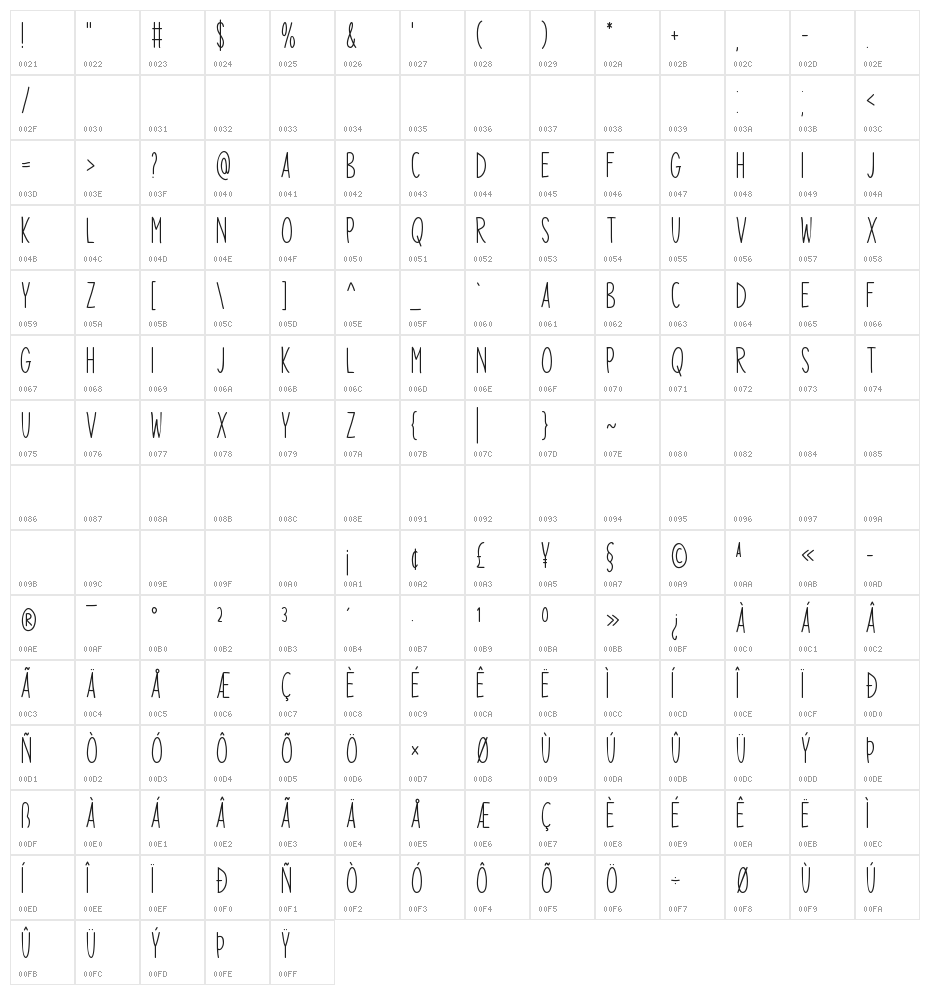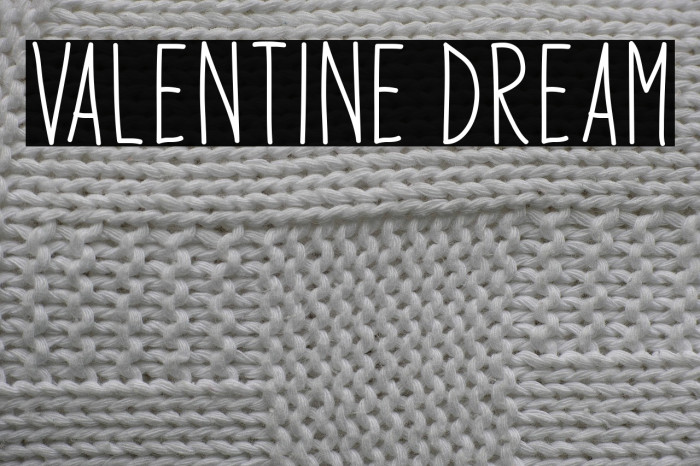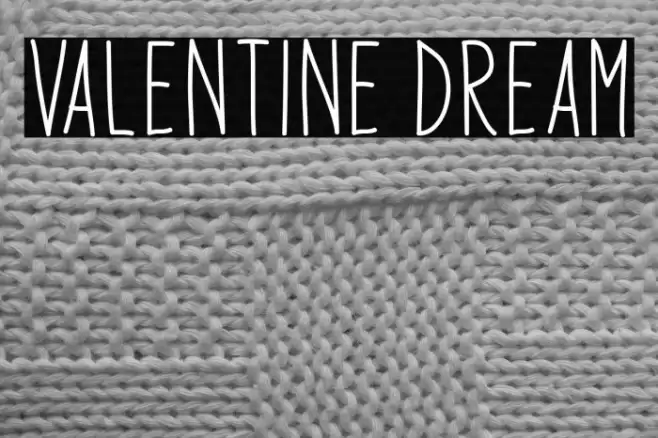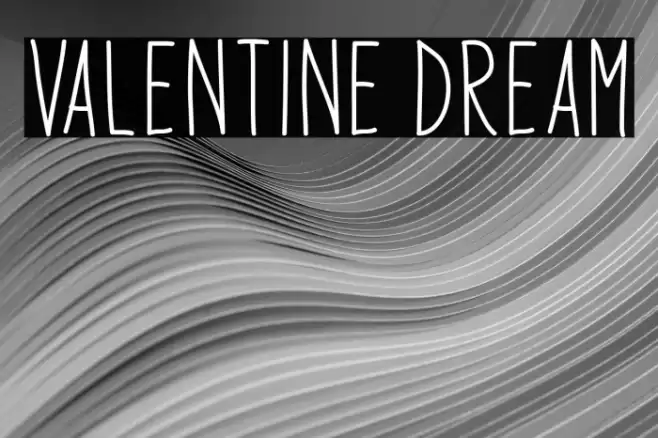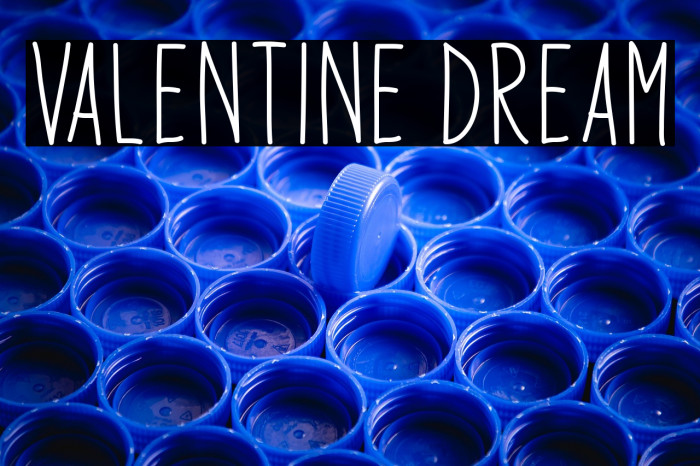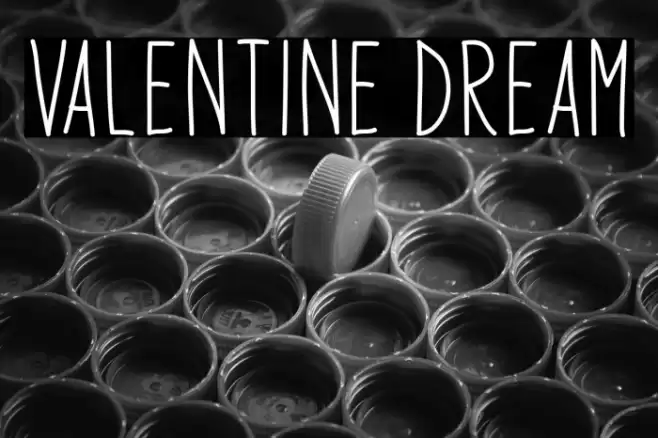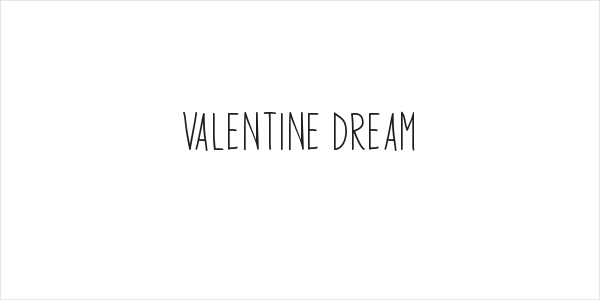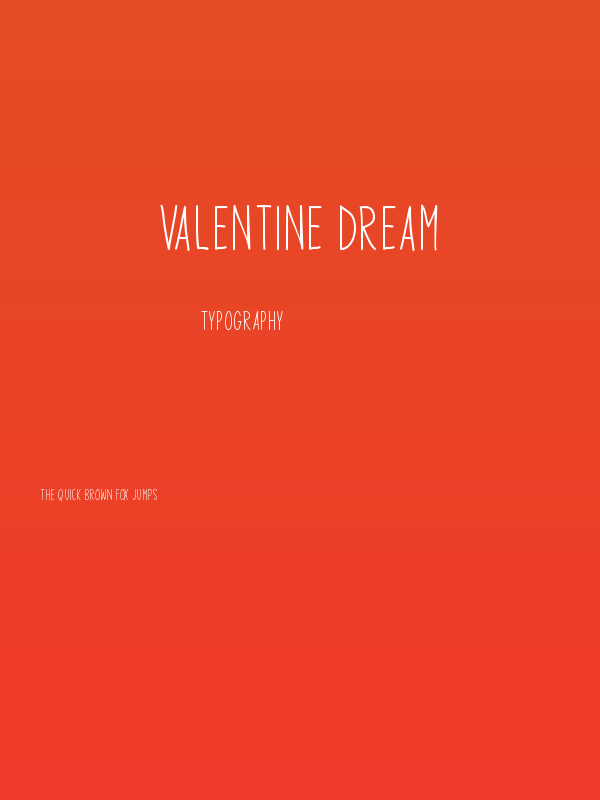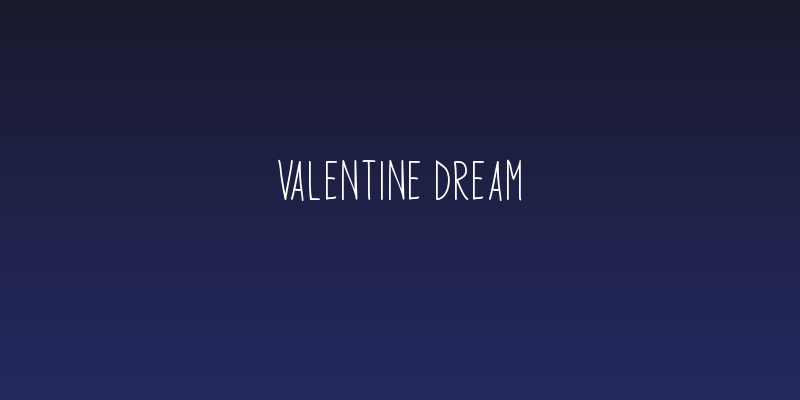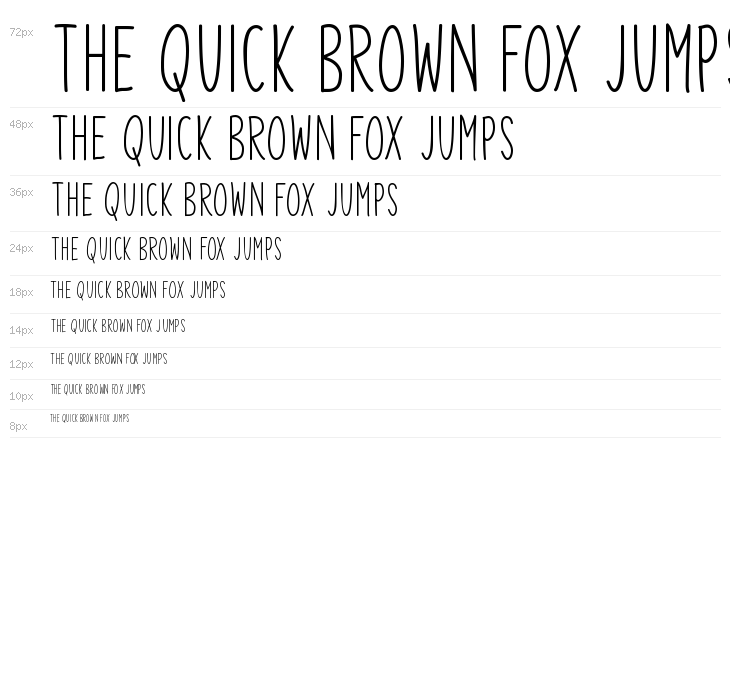
Valentine Dream Font
Valentine Dream Description
This font features a playful and whimsical handwritten style, characterized by its tall, narrow letters and slightly irregular strokes. The uppercase and lowercase letters maintain a consistent height, creating a cohesive and uniform appearance. The font's thin lines and gentle curves give it a friendly and approachable feel, making it suitable for casual and informal designs. The spacing between characters is moderate, ensuring readability while maintaining its unique charm. The inclusion of special characters and punctuation adds versatility, allowing for a wide range of creative applications.
| Proposed Projects | Ideal for greeting cards, children's books, playful branding, and social media graphics. |